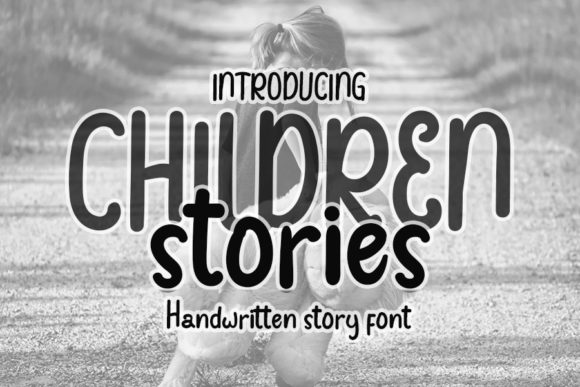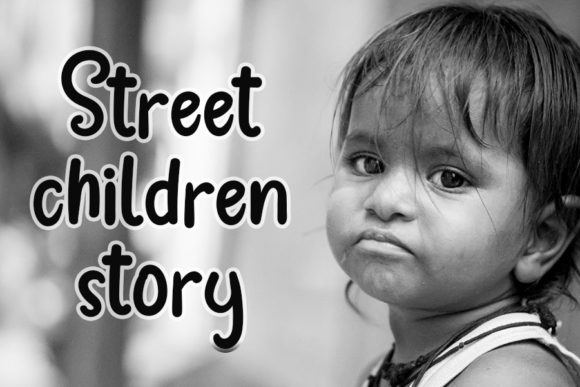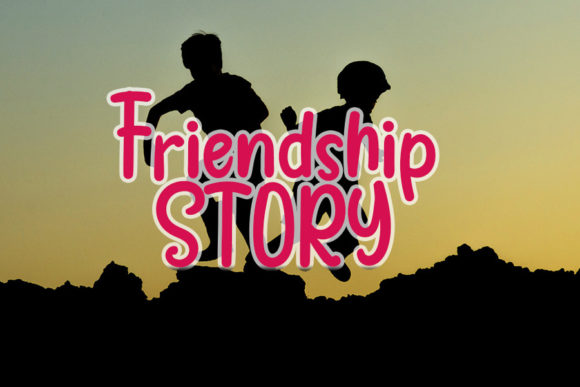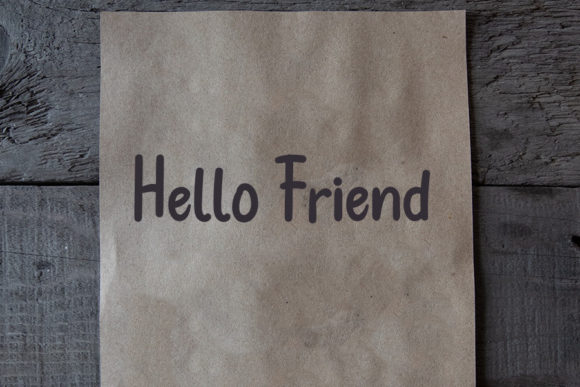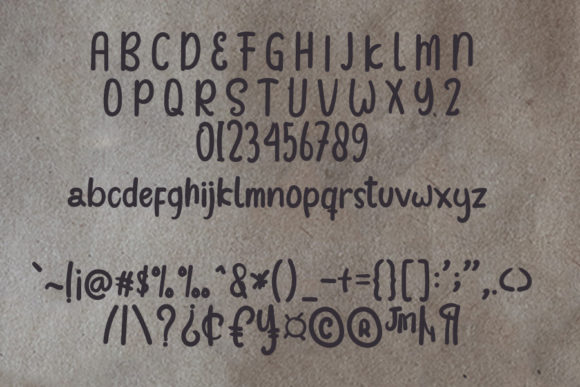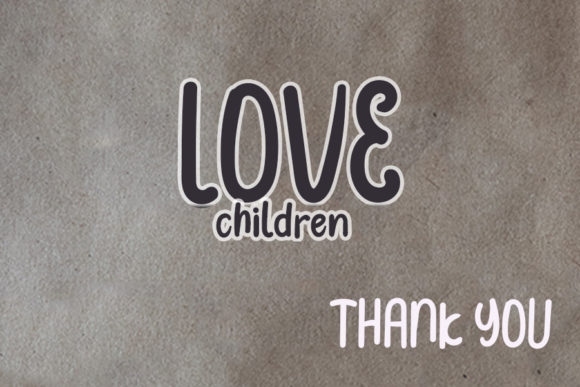
Children Stories Font
“Children Stories” is a friendly handwritten font that has been meticulously designed to become a true favorite among designers and typographers. This font beautifully combines the elegance of classic calligraphy with a fresh and contemporary aesthetic, making it a versatile choice for a wide range of applications.
The charm of Children Stories lies in its ability to retain its classy calligraphic influences while exuding a modern and fresh vibe. The subtle strokes and elegant curves are reminiscent of traditional handwriting, lending a personal and intimate feel to your text.
Despite its classic influences, Children Stories feels contemporary. It’s a font that speaks to the past while being firmly rooted in the present. Whether you’re designing a logo, crafting an invitation, or creating a blog post, Children Stories can help you convey your message with style and clarity.
Moreover, Children Stories is not just about aesthetics. It’s also about functionality. It’s a versatile font that works well in a variety of contexts, from formal documents to creative projects. With its clean lines and clear legibility, Children Stories is easy to read, making it a great choice for both print and digital media.
In a world where design matters, Children Stories can help you stand out. Its blend of modern design and classic calligraphy makes it a versatile and stylish choice for designers and creatives. Choose Children Stories, and let your designs shine.